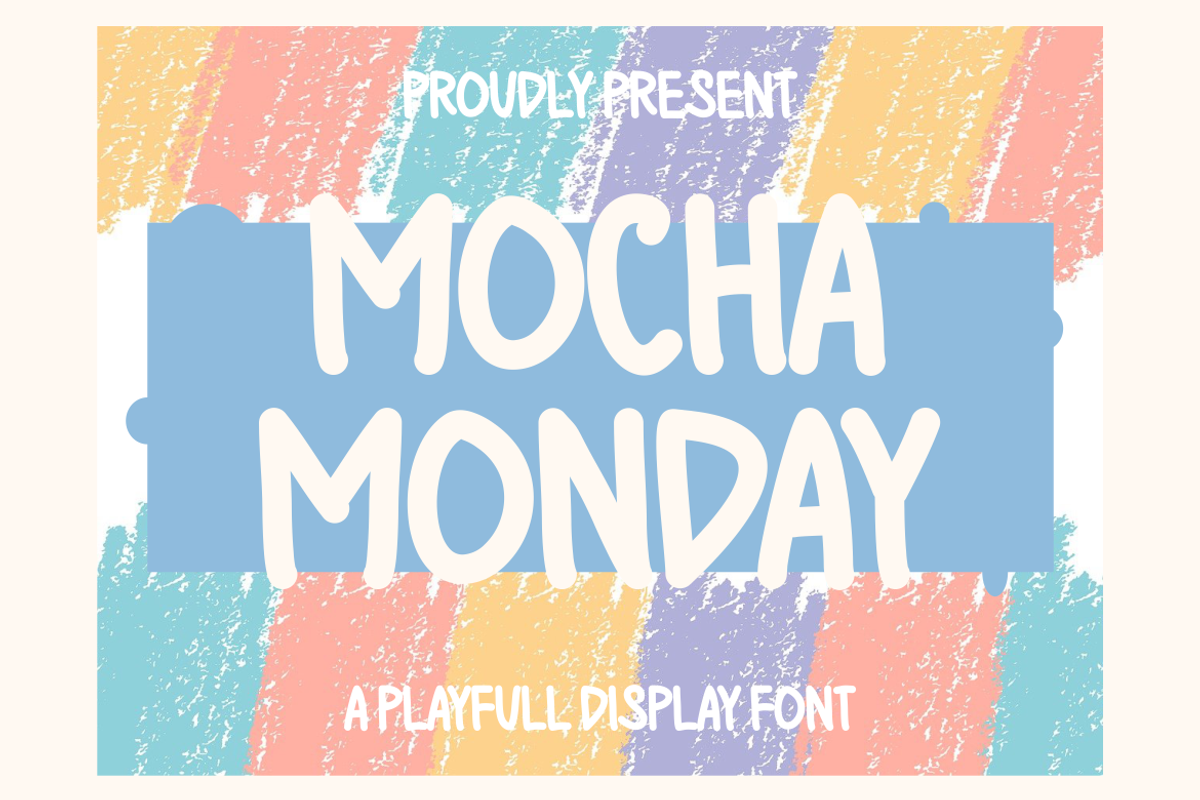
MOCHA MONDAY
MOCHA MONDAY is a playfull cute and display font. Each letter is designed with a soft and rounded touch, giving a feeling of softness and happiness. Smooth lines and decorative elements like little hearts at each corner make this font perfect for projects that need a touch of playfulness, such as birthday invitations, greeting cards, or children's product designs. This font is suitable for any branding project such as quotes, logos, blog headers, posters, ribbons, letters, invitations, stationery, etc... It is designed to be versatile and flexible that can be used on a variety of projects and mediums. extraordinary in a variety of contexts.